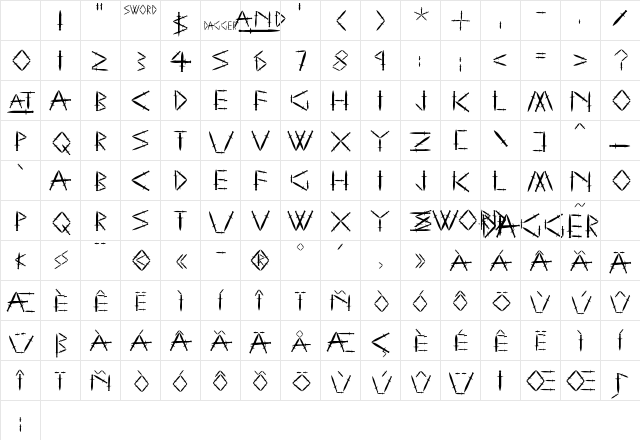
Complete YY Sword and Dagger Regular glyph index. Displaying only characters natively supported by YY Sword and Dagger Regular font.
YY Sword and Dagger is a composed and adaptable typeface that performs quietly and consistently across a wide range of design contexts.